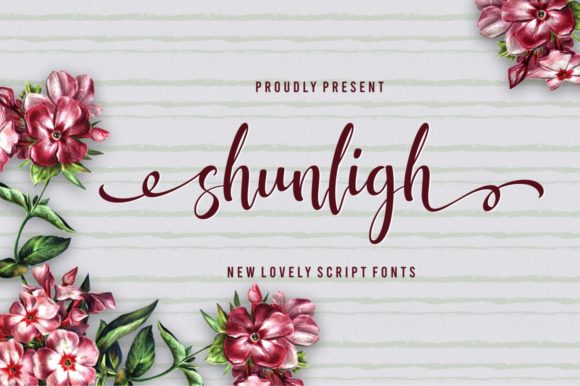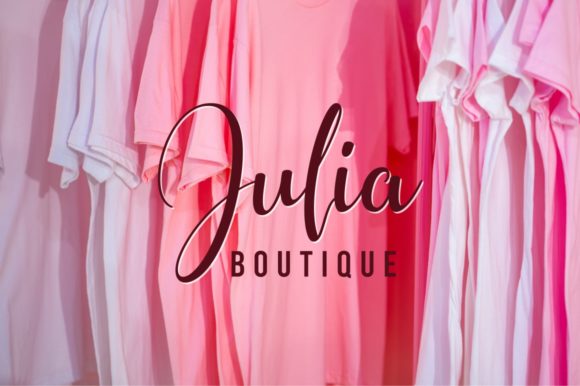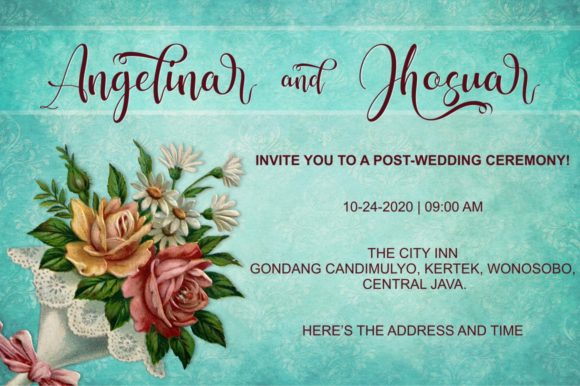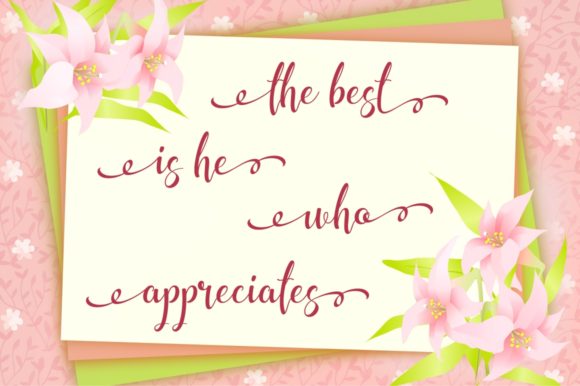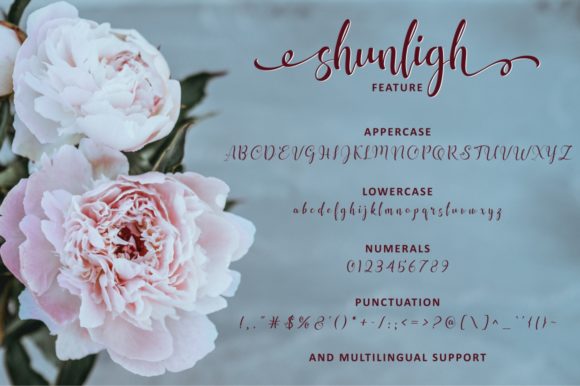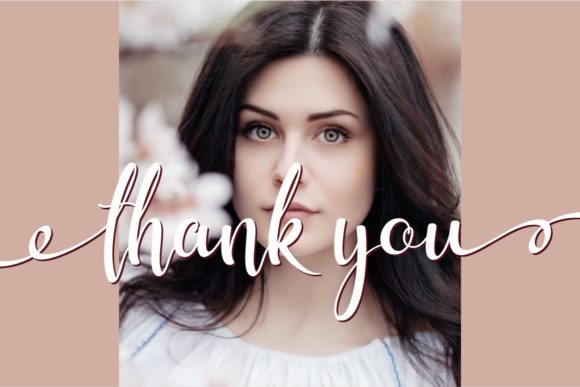
Shunligh Font
About Shunligh Font
Shunligh is a casual and modern script font with a lovely style. It is perfectly suited for a wide variety of projects!